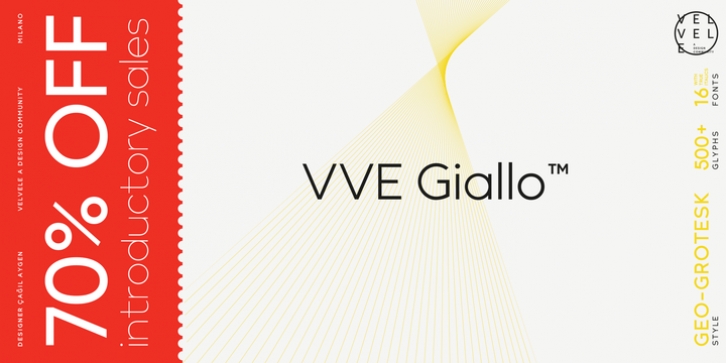
VVE Giallo brings simplicity, elegance and a certain warmth wherever a contemporary geometric typeface is needed. The balanced characteristics, clear and legible silhouette and simultaneously vivid appearance of VVE Giallo makes it perfect for any needs.
VVE Giallo's characteristic high x-height does not only give perfect legibility but also perfect matching for strong headlines, outstanding logos and also for long texts. By keeping the "o" and "a" perfect circles gives VVE Giallo the minimalist and modernist looking.
VVE Giallo has six weights, thin to heavy, give it a full range of expression for branding; in print and on screen. Matching true italics, carefully slanted 10º, are perfectly designed one by one. The family totally consists of 16 styles. lt supports many OpenType features, such as tabular numerals, inferiors & superiors, numerators & denominators, fractions, discretionary ligatures, arrows and etc. It combined more than 500 glyphs.